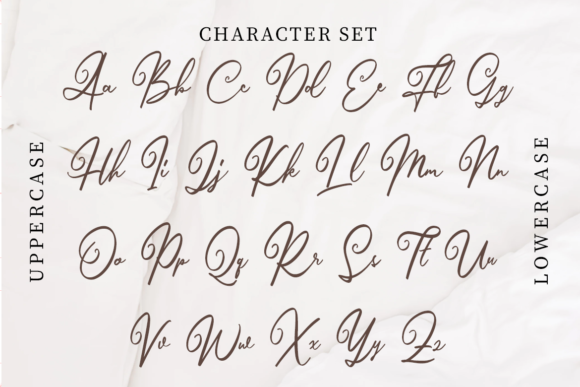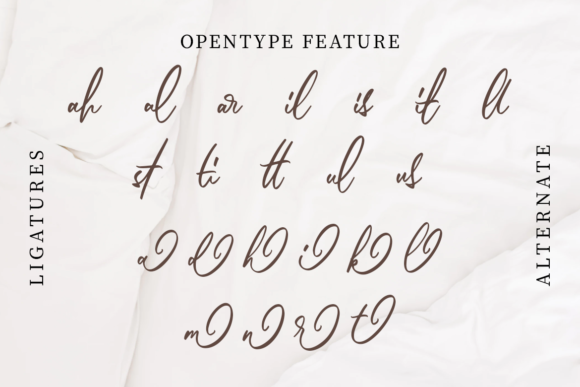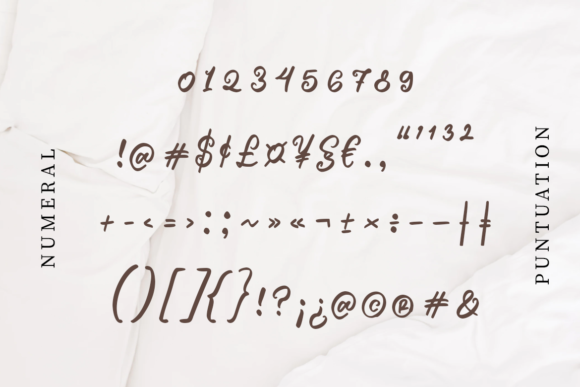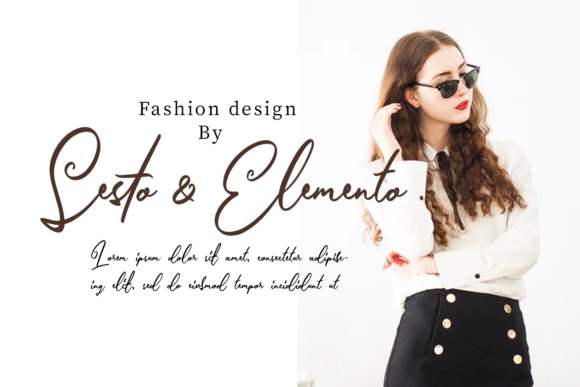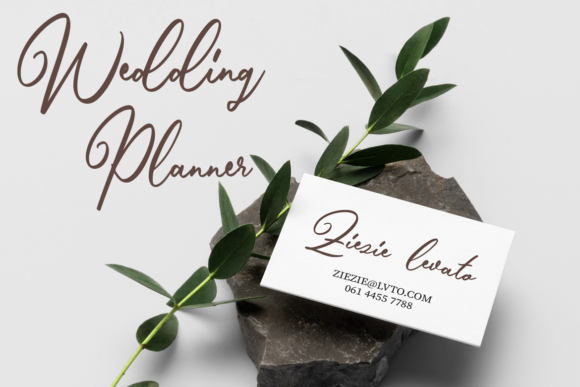
Milea Font
About Milea Font
Milea is a beautiful handwritten font that exudes charm and elegance. Its flowing and organic letterforms give your designs a unique and personal touch, making it a perfect choice for various design projects.
With Milea, you can add a touch of sophistication to your branding, invitations, greeting cards, quotes, logos, and more. The fluid strokes and natural curves of the letters create a graceful and harmonious aesthetic, capturing attention and evoking a sense of beauty.
Whether you’re working on a wedding invitation, a social media post, or a personalized gift, Milea brings a delightful and charming vibe to your designs. Its PUA encoding allows you to easily access a wide range of glyphs and swashes, enabling you to customize and embellish your text effortlessly.
The versatility of Milea makes it suitable for both formal and informal designs. It can convey a sense of elegance and refinement for sophisticated projects, while also adding a touch of warmth and approachability for more casual and friendly designs.
Furthermore, Milea is designed with legibility in mind. The careful spacing and clear letterforms ensure that your message is easily readable, even at smaller sizes. This is particularly important when using the font for longer passages of text or in contexts where clarity is essential.
Incorporate Milea into your design projects and let its beauty and charm shine through. Whether you’re creating wedding stationery, branding materials, or anything in between, this font will elevate your designs and captivate your audience with its enchanting handwritten style.
Embrace the versatility and elegance of Milea, and enjoy the creative possibilities it offers. Let this beautiful handwritten font infuse your designs with a charming and personalized touch that will make them stand out.